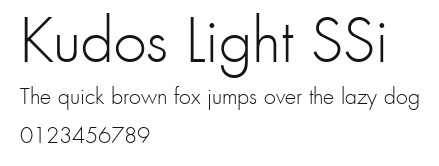
About Kudos Light SSi.ttf
Kudos Light SSi.ttf is a modern, elegant sans-serif font designed for ultimate readability and visual harmony. Perfect for branding, headlines, web design, and print materials.